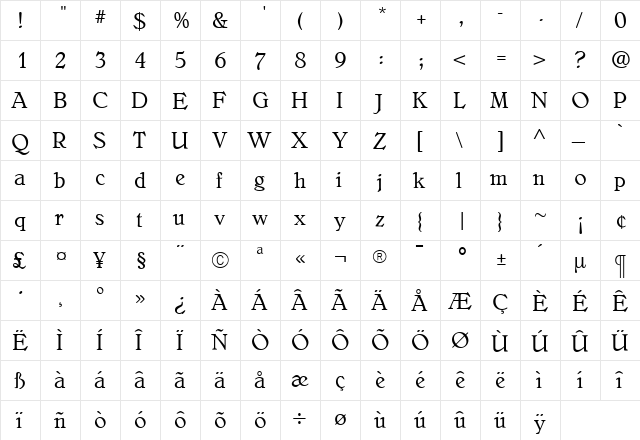
BelliniOriginal Regular
| Foundry | Copr. Red Rooster Typefounders |
Design Context for BelliniOriginal Typeface
BelliniOriginal takes a measured approach to typography — its balanced proportions and neutral character make it a reliable workhorse for both digital and print work.